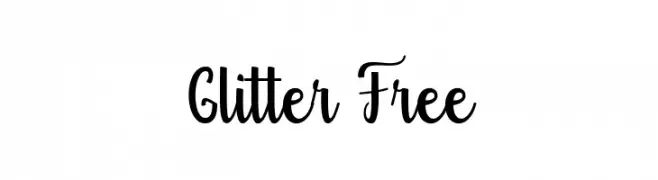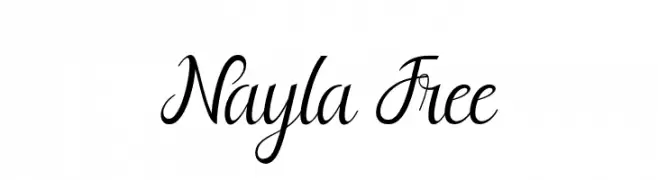
A dynamic, slanted handwritten font with fluid, connected letters.
Cartoon chef-themed decorative font with playful, hand-drawn illustrations.
Illustrative, playful font with child-themed scenes for each character.
A decorative script font with elegant, flowing lines and a hand-drawn aesthetic.
A playful, hand-drawn dingbat set featuring childlike sketches of faces, animals, and objects.
A playful font with letters formed by illustrations of children in various activities.
A whimsical, hand-drawn sketch font inspired by children's drawings.
A playful collection of child-like doodles and illustrations.
A playful, child-like handwritten font with uneven, lively characters.
A playful, handwritten-style font with a childlike, whimsical appearance.
A bold, playful handwritten font with rounded edges and a casual vibe.
A decorative dingbat font with cartoon children illustrations.
A flowing, cursive script font with elegant, interconnected strokes.
A playful, rounded font with bold, smooth curves and a friendly style.
A decorative font with sharp, angular edges and an Asian calligraphy-inspired style.
A fluid and expressive calligraphy font inspired by traditional Chinese brush writing.
A bold, rugged font with a distressed, edgy appearance.
An elegant script font with flowing, interconnected letters and ornate flourishes.
An elegant, flowing script font with delicate strokes and graceful curves.
A bold, geometric font with Art Deco influences, perfect for striking headlines and branding.
A bold, chiseled font with a three-dimensional effect, perfect for impactful designs.
A bold, dynamic brush script font with expressive strokes.
A bold, blocky font with uppercase letters enclosed in square borders, ideal for impactful designs.
A bold, retro-style font with a 3D shadow effect.
An elegant script font with ornate, flowing letterforms and decorative flourishes.
A bold, modern font with a futuristic and geometric design.
A dynamic and expressive handwritten font with fluid, flowing letterforms.
A bold, playful font with exaggerated, uneven strokes for a whimsical look.
A bold, 3D font with a playful, dynamic style and shadow effect.